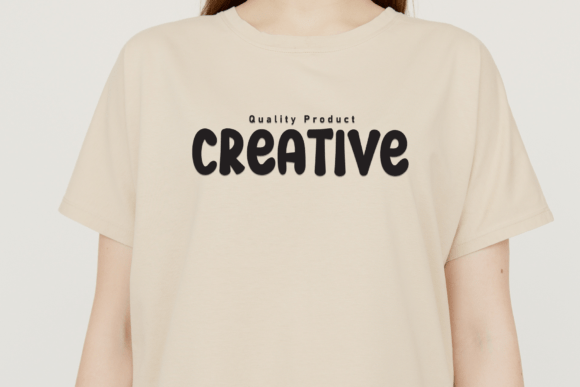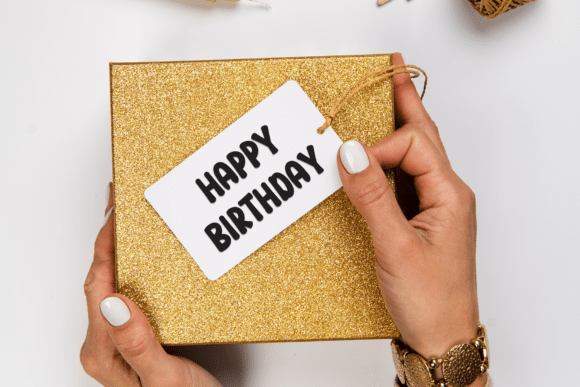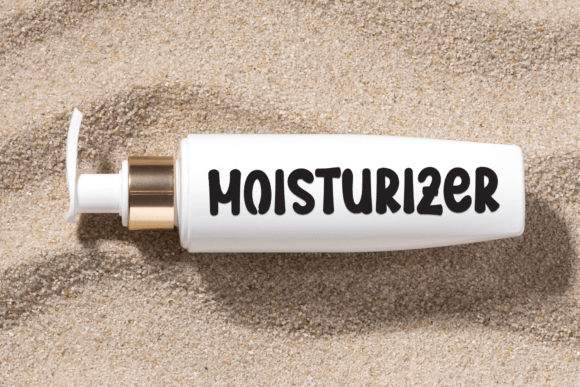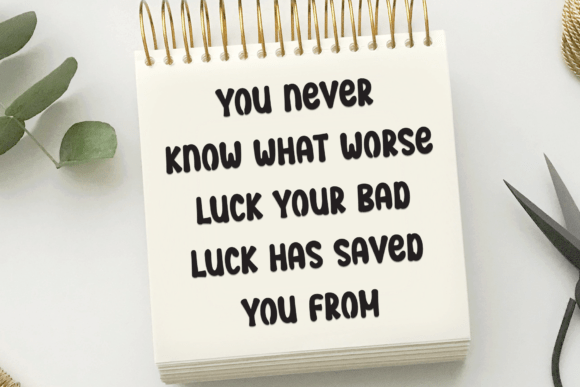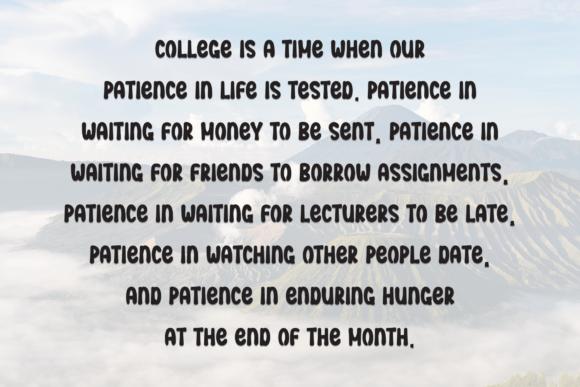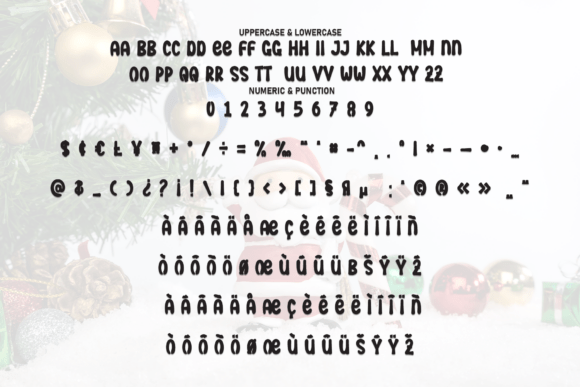
The Magic of Christmas Font: A Designer’s New Best Friend
I’ll never forget the holiday season project that had me stuck in a font frenzy. I was working on a festive poster for a client’s Christmas promotion, and no matter how hard I tried, I just couldn’t find the perfect font. That was until I stumbled upon Christmas Font – a casual display font that instantly captured the cheer and charm I was looking for. In this article, I’ll share my experience with Christmas Font, its features, and how you can make the most of it in your designs.
First Impressions: A Review of Christmas Font
Christmas Font is a modern, yet playful display font that brings a fresh and friendly vibe to any project. Here’s what I love about it:
- ✨ Clean shapes and soft edges that give it a warm, approachable feel
- ✅ Well-balanced letterforms that ensure clarity and readability
- ✅ Versatile character that works well for various design applications, from posters and branding to packaging and social media graphics
- ✨ Eye-catching appeal that adds a touch of personality to any project
While Christmas Font is an excellent choice for many design projects, it’s not without its quirks. Here are a few things to keep in mind:
- ⚠️ Limited use of OpenType features, which might be a drawback for some designers
- 🤔 Not ideal for body text or long-form content due to its display font nature
One of the best things about Christmas Font is its support for OpenType features and glyphs. These features allow you to add more personality and variety to your text. Here are a few tips on how to access and use them:
The Story Behind Christmas Font
Christmas Font was designed with the goal of creating a modern, yet approachable font that captures the essence of the holiday season. Inspired by the simplicity and elegance of winter landscapes, the font’s creator aimed to craft a typeface that’s both festive and versatile. Whether you’re designing a holiday poster or a social media graphic, Christmas Font is the perfect choice.
- Q: What type of projects is Christmas Font best suited for?
- A: Christmas Font is ideal for posters, branding, packaging, and social media graphics that require a modern, yet playful touch.
- Q: Does Christmas Font support OpenType features?
- A: Yes, Christmas Font supports OpenType features, including glyphs and stylistic alternates, which can be accessed in compatible design software.